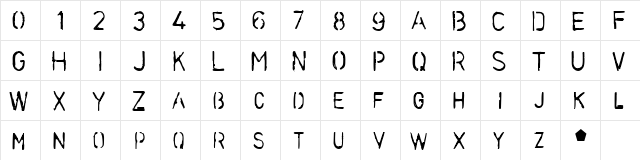
Stencilcase Bold
Design Context for Stencilcase Typeface
Stencilcase borrows the utilitarian aesthetic of stencil lettering, with its characteristic cutaways and no-frills construction lending an industrial edge. Its bold stroke weight gives it real presence on the page.
A strong choice for packaging that needs edge, warehouse aesthetics, and rough-and-ready visual identities.
Pro Tip: Use Stencilcase at large sizes on packaging, posters, or apparel where the stencil cutaways read clearly. Avoid small sizes where those gaps become visual noise.